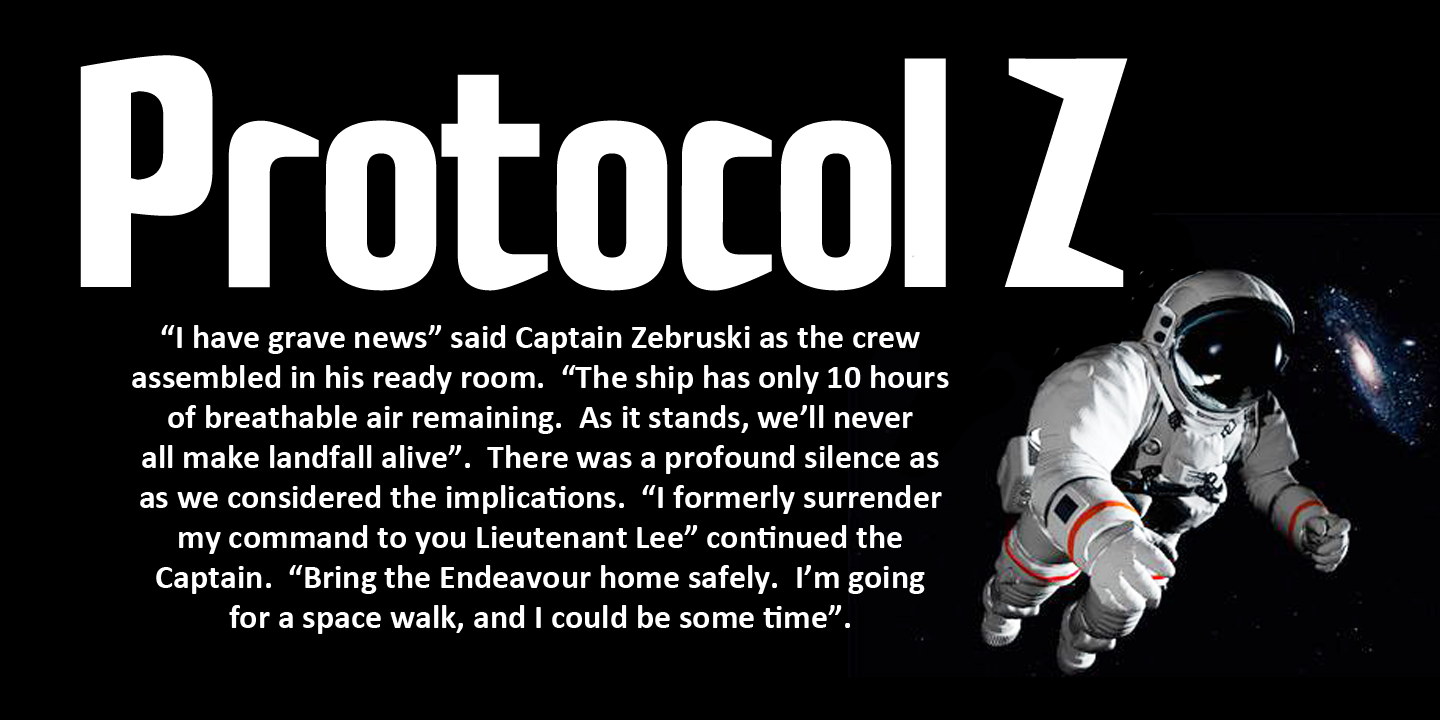
Cybernaut Font excels in futuristic design applications including sci-fi movie posters, gaming interface design, tech startup branding, cyberpunk artwork, digital product packaging, electronic music album covers, virtual reality experiences, robotics company logos, and cutting-edge web design for technology platforms.
What makes Cybernaut Font exciting is its bold fusion of technological innovation and sleek digital aesthetics. This striking typeface embodies the spirit of the digital age with sharp, geometric letterforms and futuristic character design that instantly communicates progress and advanced technology. The font's distinctive cyber-inspired styling creates powerful visual impact while maintaining exceptional clarity, making it perfect for brands operating in the tech, gaming, and digital innovation sectors.
Cybernaut Font family encompasses multiple weights and stylistic variations designed for comprehensive digital communication. The family typically includes light, regular, bold, and black weights, often featuring condensed versions, outlined styles, and special effects variants that enhance its technological appeal with extended character sets supporting various languages and symbols.
Forward-thinking designers consistently select Cybernaut Font Free Download for projects demanding cutting-edge typography that captures the essence of digital transformation. This dynamic typeface adapts seamlessly across platforms, from mobile interfaces to large-scale digital billboards, delivering consistent brand messaging with unmistakable futuristic flair. The font's precisely engineered letterforms ensure optimal performance in both static and animated applications. Creative agencies worldwide leverage this innovative typeface to establish technological credibility and communicate forward-thinking brand values. Embrace the future of design with Cybernaut Font and create visually stunning projects that resonate with tech-savvy audiences seeking innovation and digital excellence.